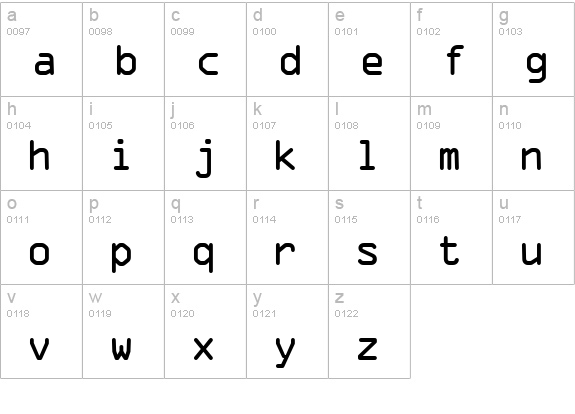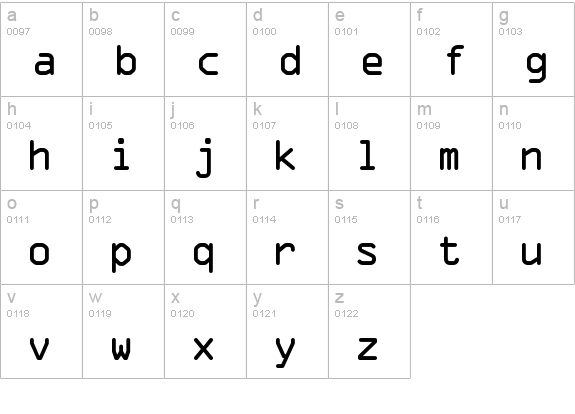
Introducing OCRAM font, a versatile and modern typeface that is perfect for a wide range of design projects. With its clean lines and sleek appearance, OCRAM font is sure to make your text stand out and leave a lasting impression. This font is not only stylish but also easy to read, making it ideal for both print and digital applications. What's more, OCRAM font is completely free to download at FontsMarket.com, making it accessible to all designers and creatives looking to add a touch of sophistication to their work. Whether you're designing a website, creating a logo, or working on a branding project, OCRAM font is sure to elevate your designs and help you achieve a professional look. Don't miss out on this incredible opportunity to enhance your projects with OCRAM font - download it for free today and take your designs to the next level!